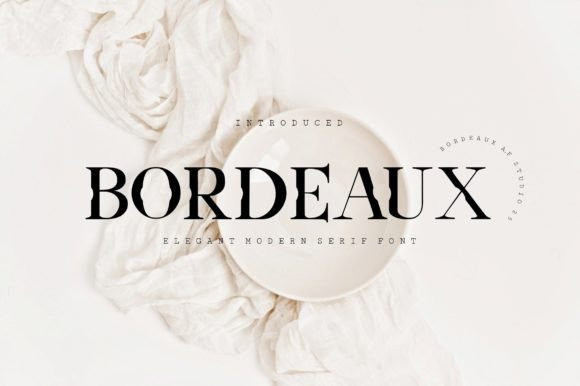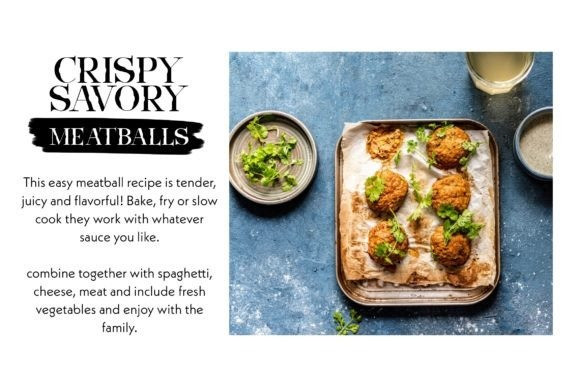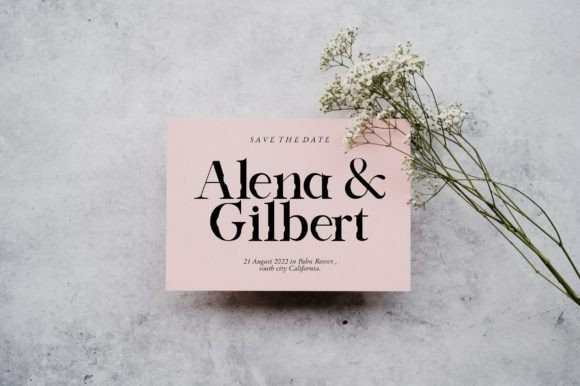
Bordeaux Font
Bordeaux is a stylish and elegant serif font. Fall in love with its incredibly versatile style and use it to create gorgeous wedding invitations, beautiful stationary art, eye-catching social media posts, and much more!